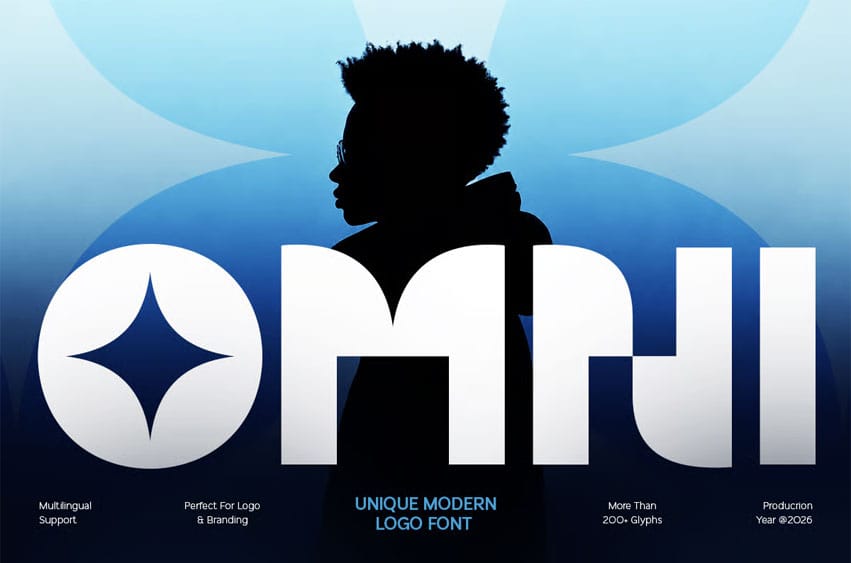
Omni Font Unique Modern Logo Font is a contemporary display typeface crafted to help brands create a memorable and distinctive visual identity. Inspired by modern logo design, innovative typography, and contemporary branding trends, OMNI is designed for projects that demand originality and strong visual recognition.
With its unique letterforms, clean structure, and refined proportions, OMNI delivers a bold yet sophisticated typographic presence. The carefully balanced design allows logos and branding materials to stand out while maintaining clarity and professional appeal.
OMNI Font Features
- Character Set: Uppercase, lowercase, numbers, symbols, and punctuation
- Unique modern letterforms optimized for logo design and branding
OMNI is Perfect For
- Modern logo and brand identity design
- Creative startups and innovative businesses
- Website headers and digital branding assets
- Marketing campaigns and promotional materials
- Editorial headlines and display typography
- Contemporary design projects requiring distinctive character
Whether you are creating a modern logo, developing a unique brand identity, or building a contemporary visual system, OMNI delivers originality, clarity, and professional style to help your brand make a lasting impression.